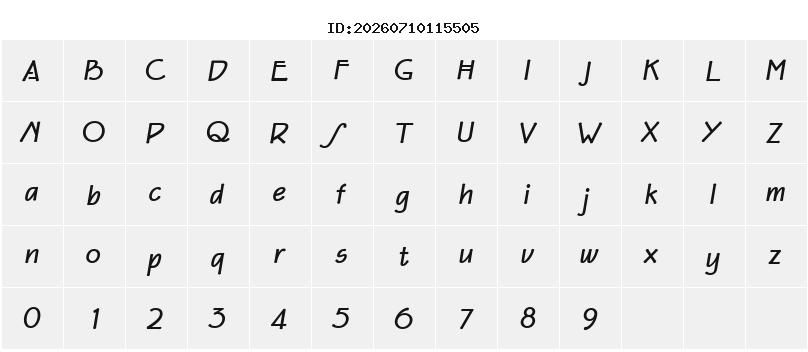
• Font Name: EaglefeatherInformal-Bol
• Font Style: RomanItalic
• Full Font Name: EaglefeatherInformal-Bol-Italic
• PostScript Name: EaglefeatherInformal-Bol-Italic
About EaglefeatherInformal-Bol.ttf
EaglefeatherInformal-Bol.ttf is a modern, elegant sans-serif font designed for ultimate readability and visual harmony. Perfect for branding, headlines, web design, and print materials.